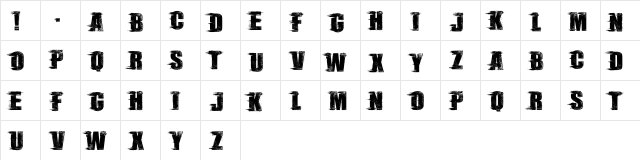
Rebel Scene_Demo Regular
| Foundry | Knackpack Studio |
| Designer | Knackpack Studio |
Design Context for Rebel Scene_Demo Typeface
Rebel Scene_Demo is a composed and adaptable typeface that performs quietly and consistently across a wide range of design contexts.